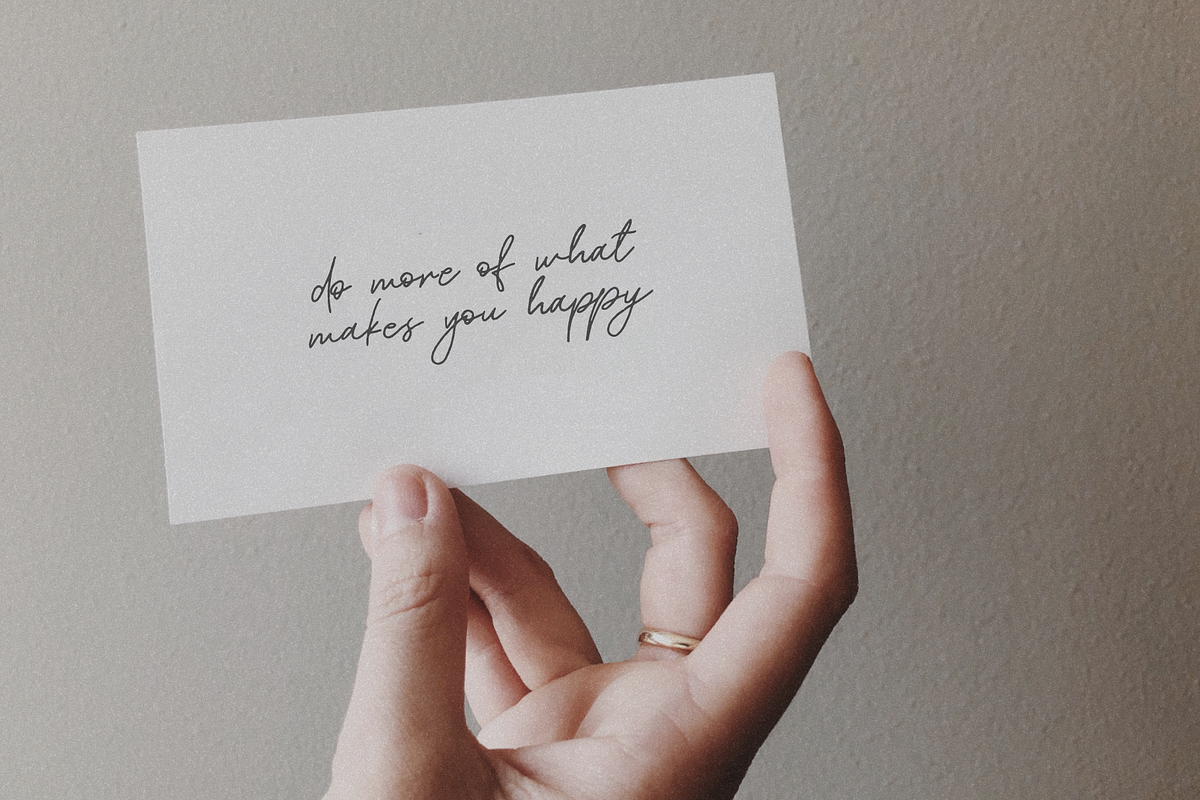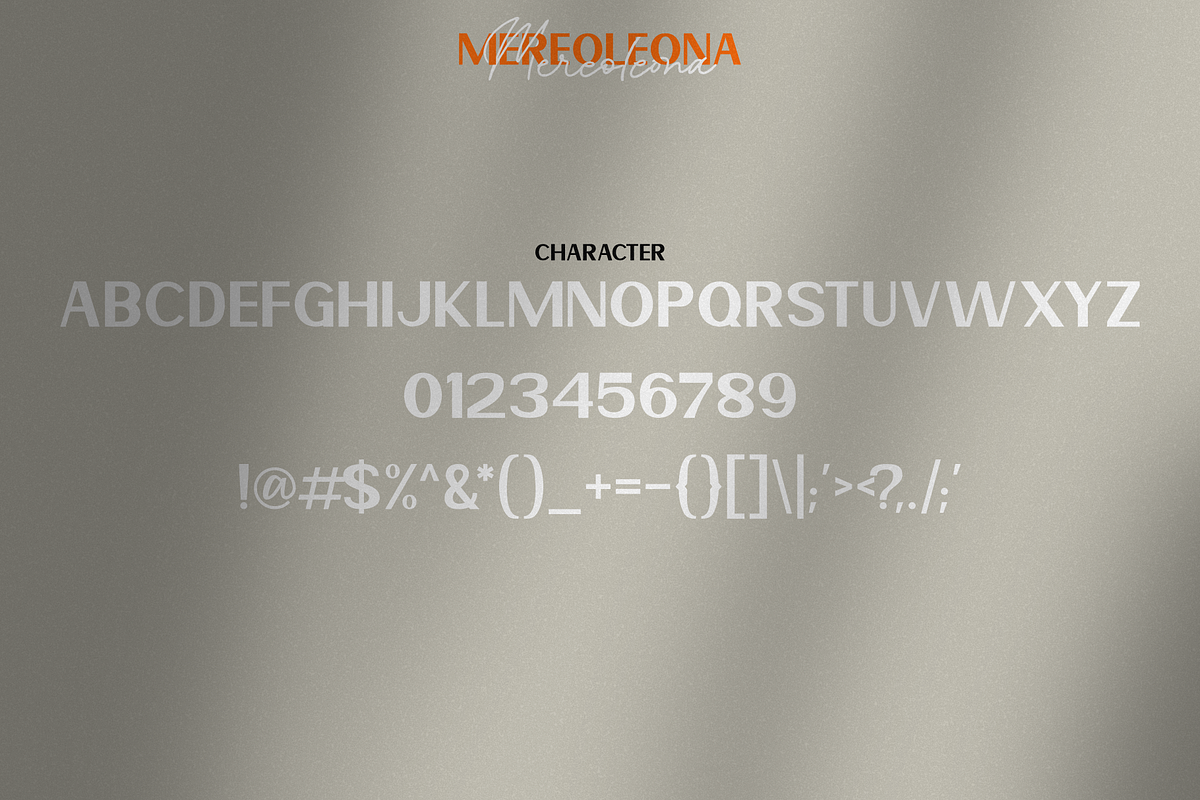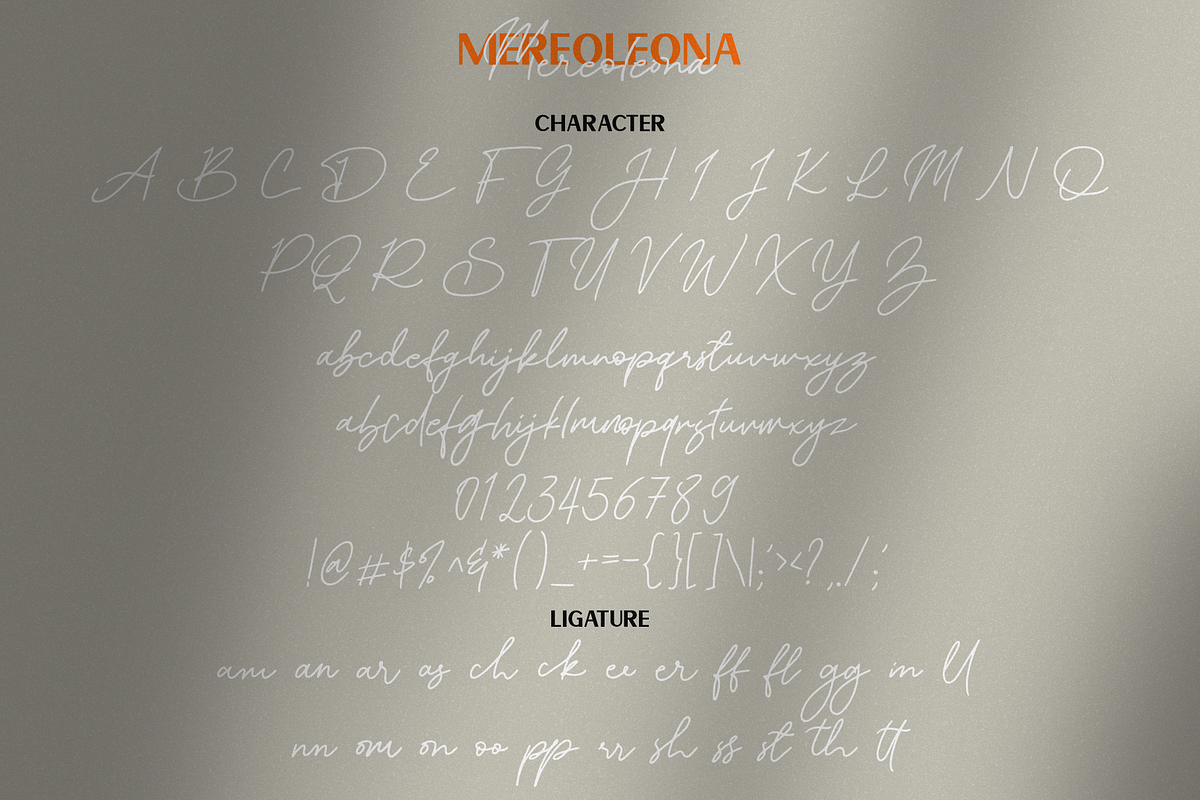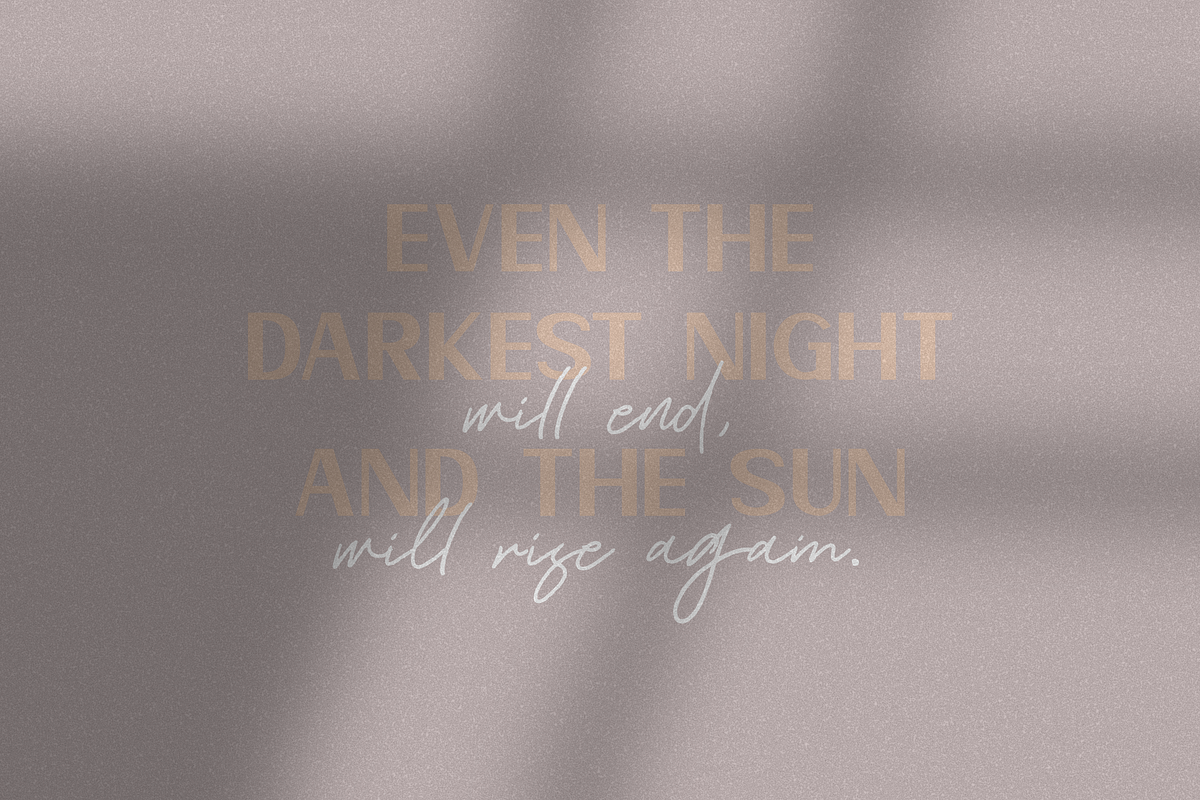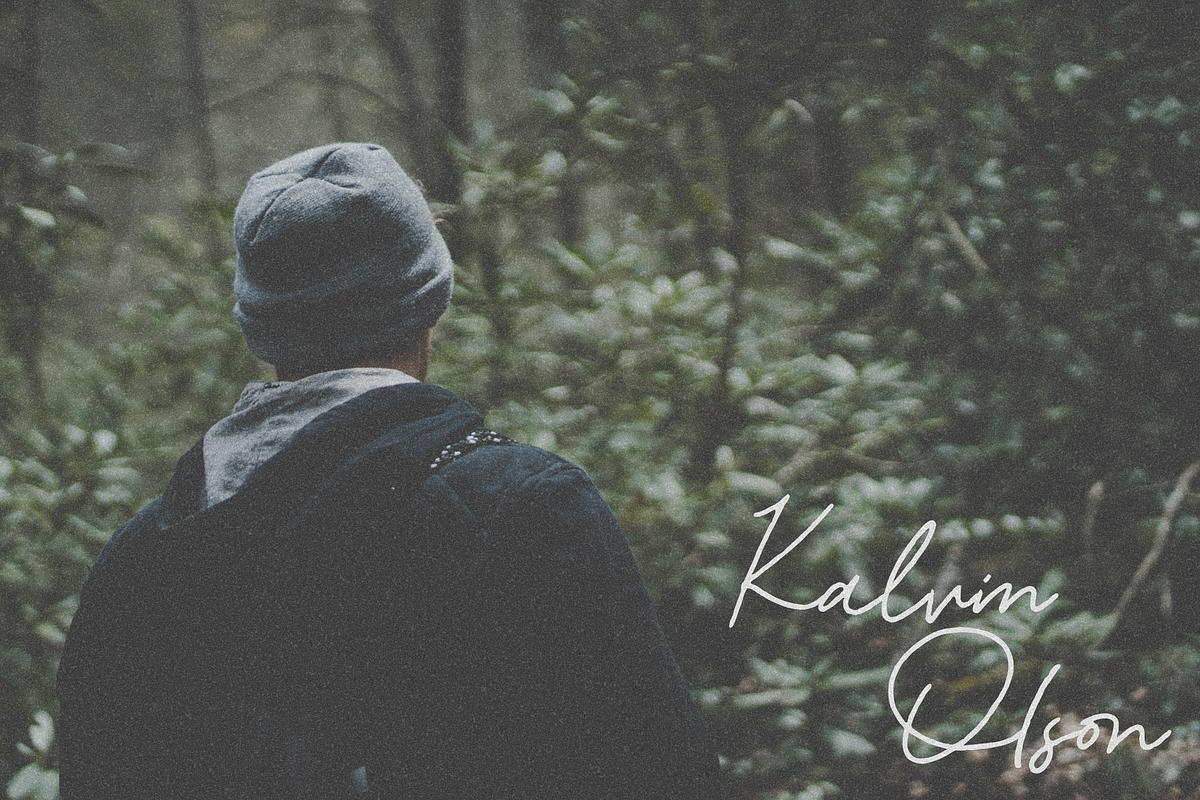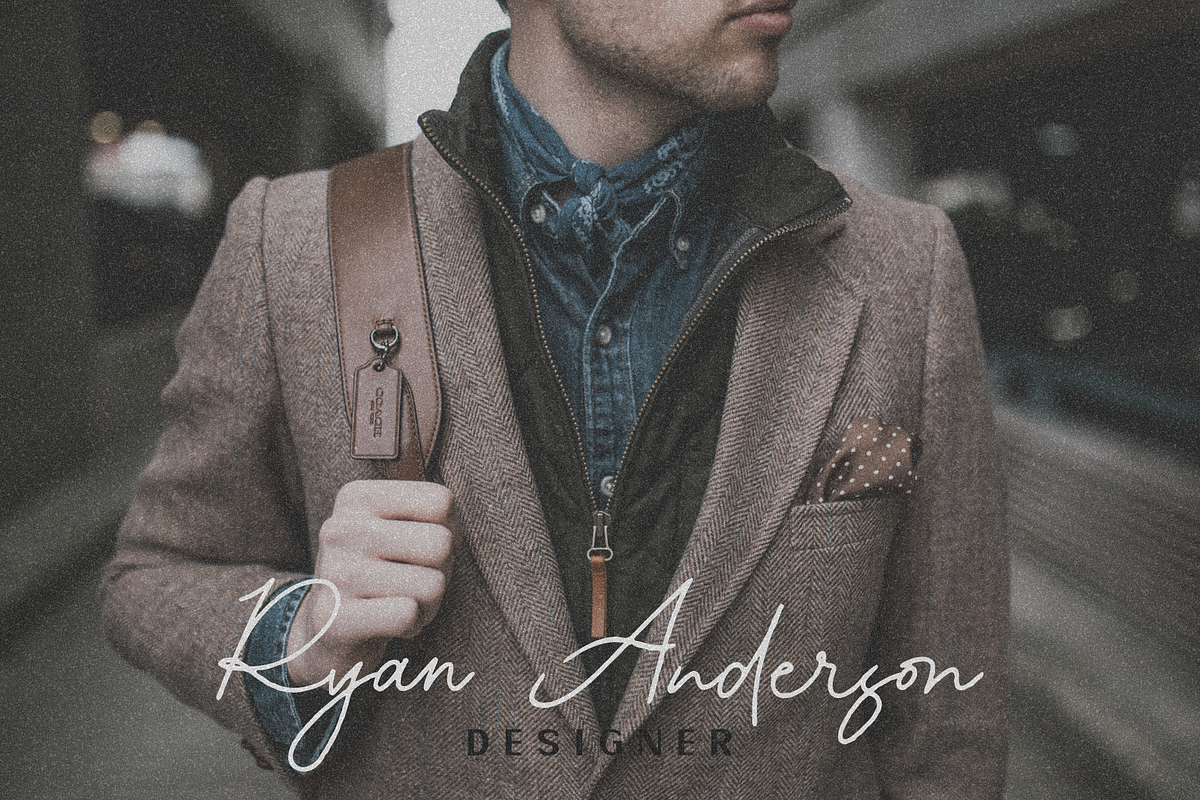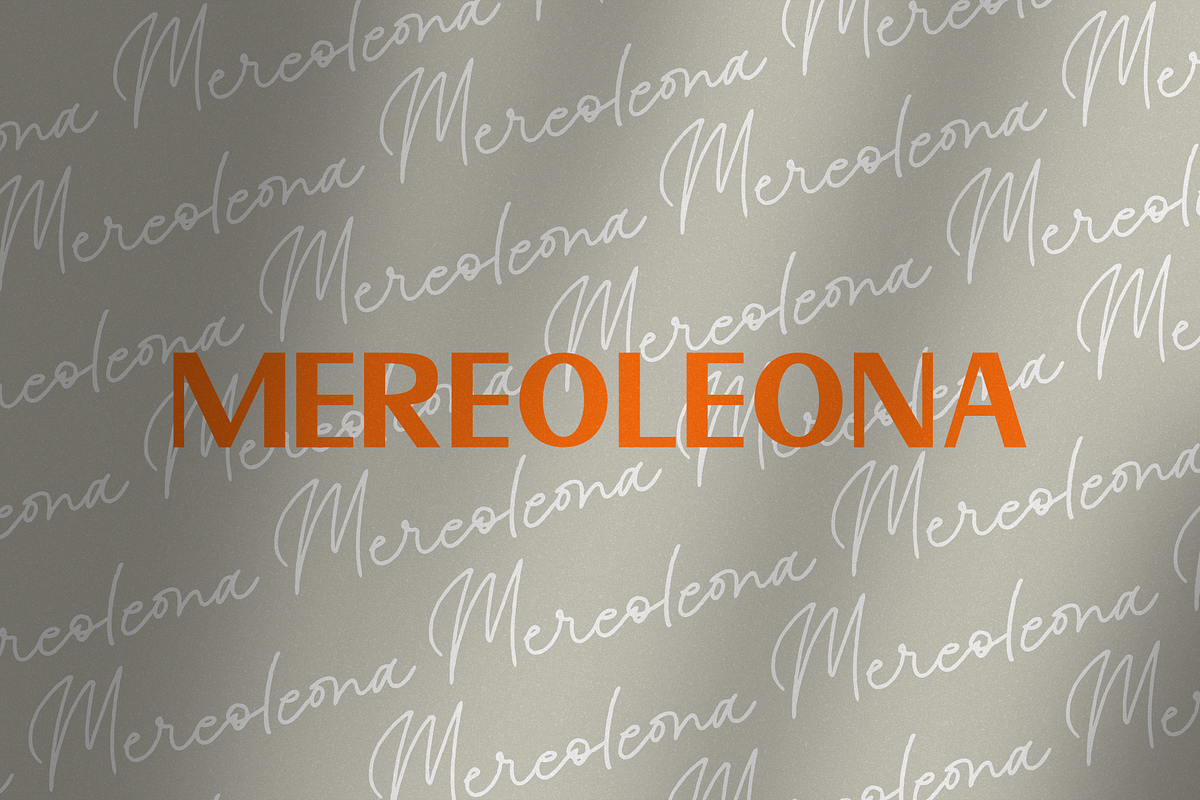
Mereoleona | Font Duo
The Mereoleona Font Duo combines a san serif and a script font. Together, they create a uniquely modern style, that effortlessly elevates any design project!
Mereoleona | Font Duo by zuzulgo fits naturally into Branding, posters, packaging, typography.